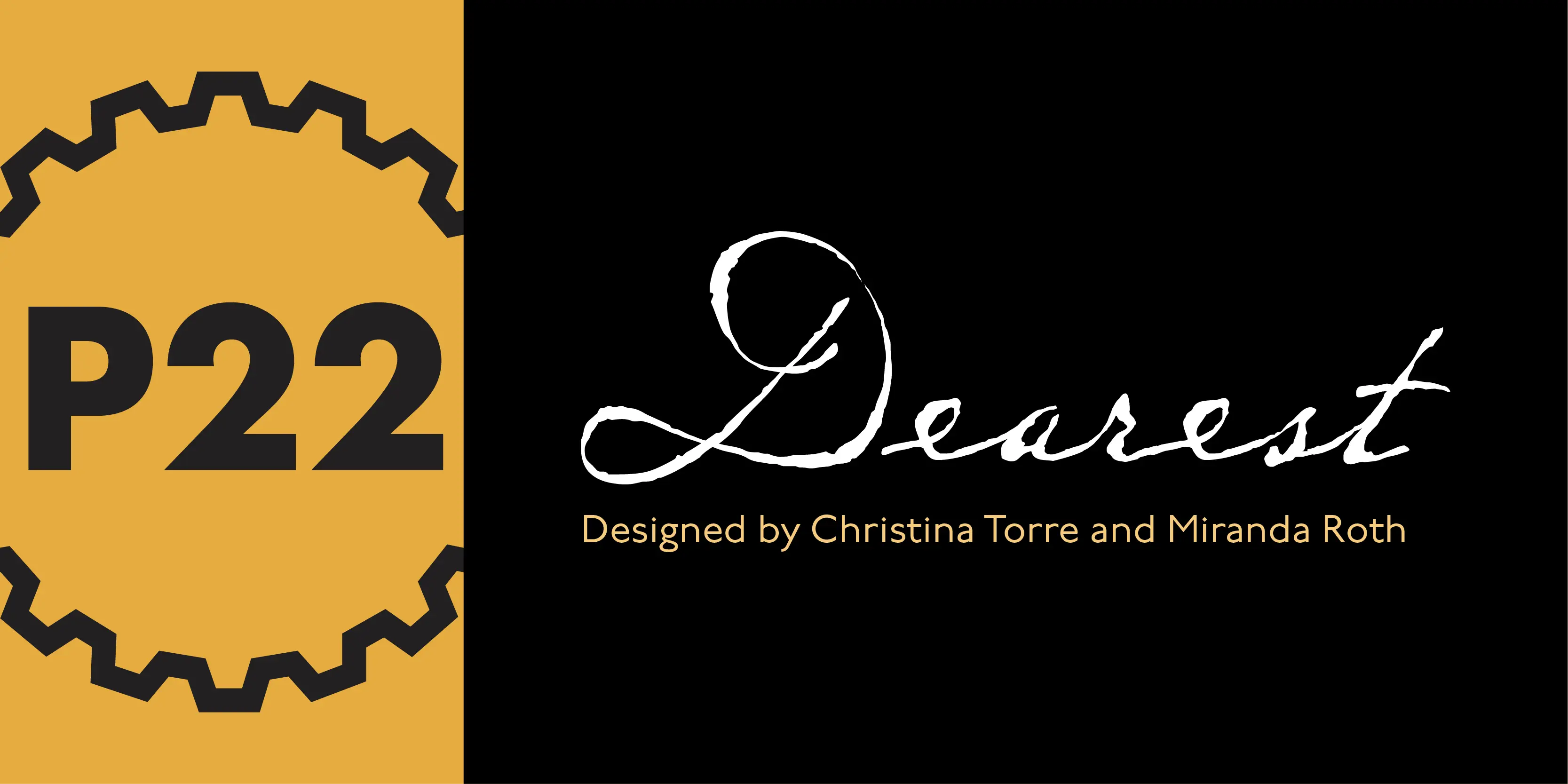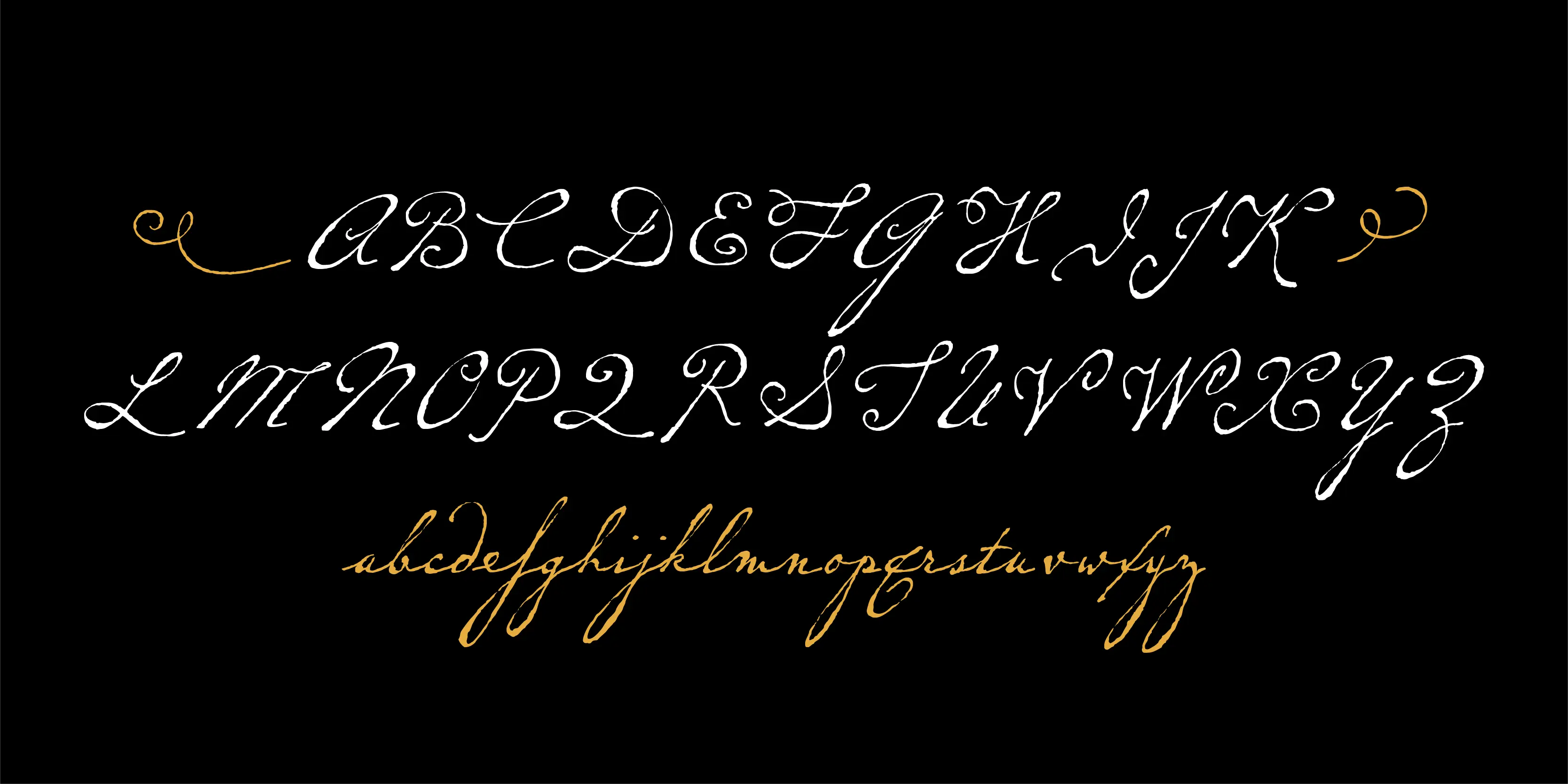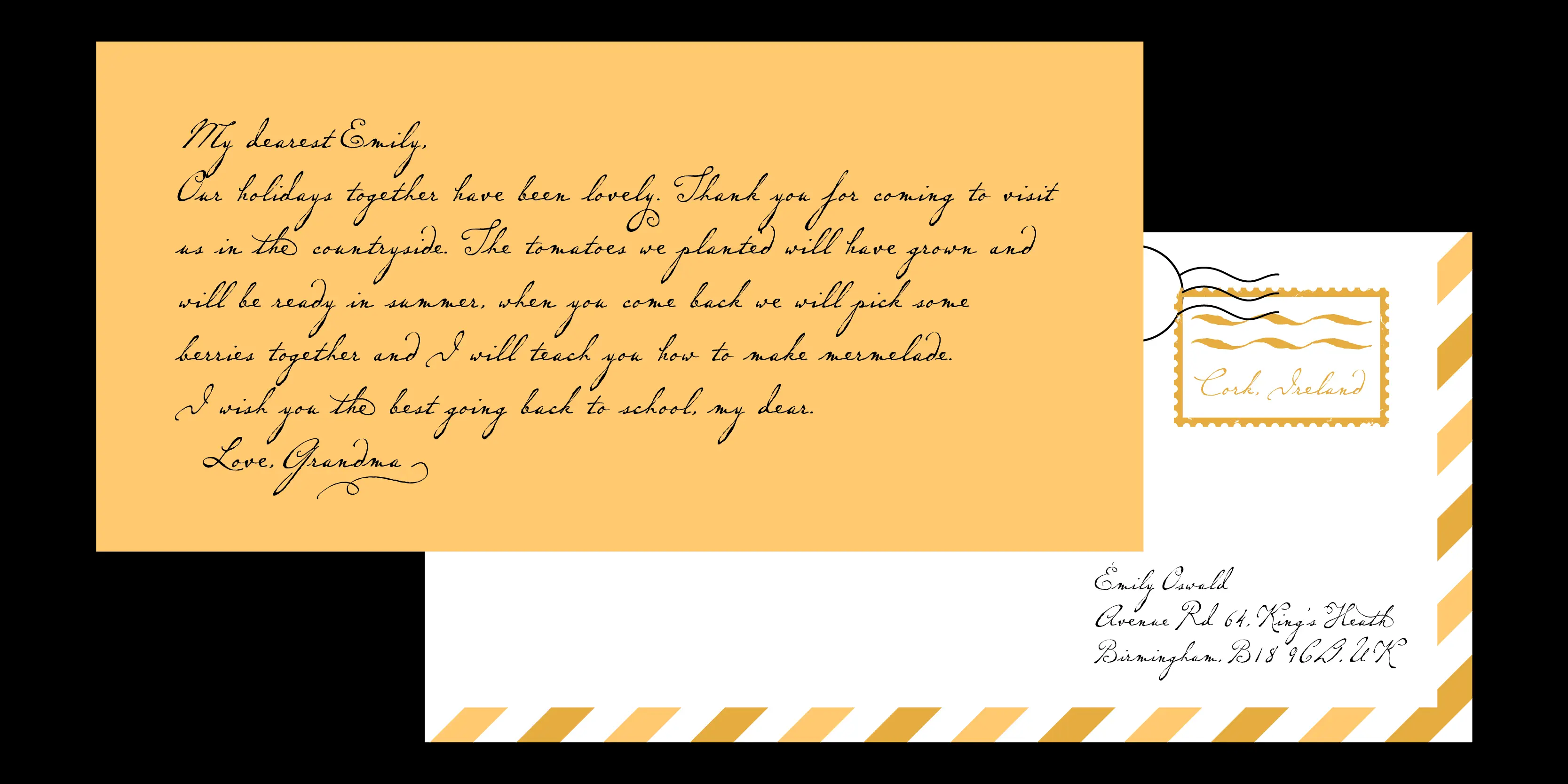
Dearest Font
Dearest
Dearest is a distinct flowing script based on handwritten characters found in a 19th Century German book chronicling a history of the Middle Ages. Originally released in 2001 as a set containing two styles, Script and Swash, Dearest is now expanded in 2014 as a pro font with several hundred new characters including support for Central European, Cyrillic and Greek languages. Other OpenType features include ligatures, fractions and figures, Roman numerals, alternate letterforms and more swashes to expand the possibilities of this designer-friendly font. In addition to the Dearest Pro font, a new companion font has been added- P22 Dearest Alternates. The characters contained in this font are part of the pro font, but are also designed to be used with Dearest Script and Dearest Swash and is intended for those who have applications that do not support OpenType features.
• Contextual Swashes
• Fractions
• Historical Ligatures
• Old Style Numerals
• Ordinal Numerals
• Ornaments
• Superscript